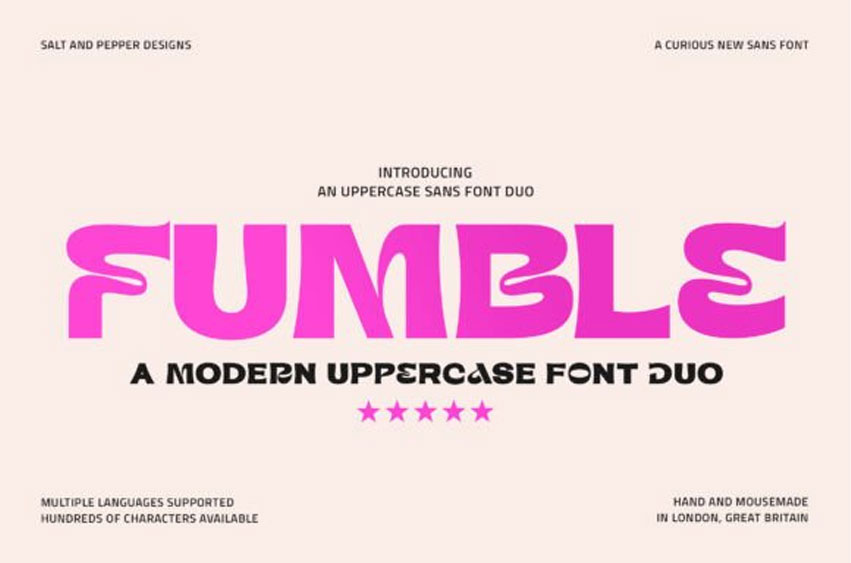
Fumble Font
Fumble Font is a bold and quirky uppercase sans-serif font duo that combines modern playfulness with a confident design.
Its exaggerated curves and creative character design make it perfect for branding, headlines, posters, and anything that demands attention. Ideal for creatives looking to bring a fun yet stylish edge to their projects.